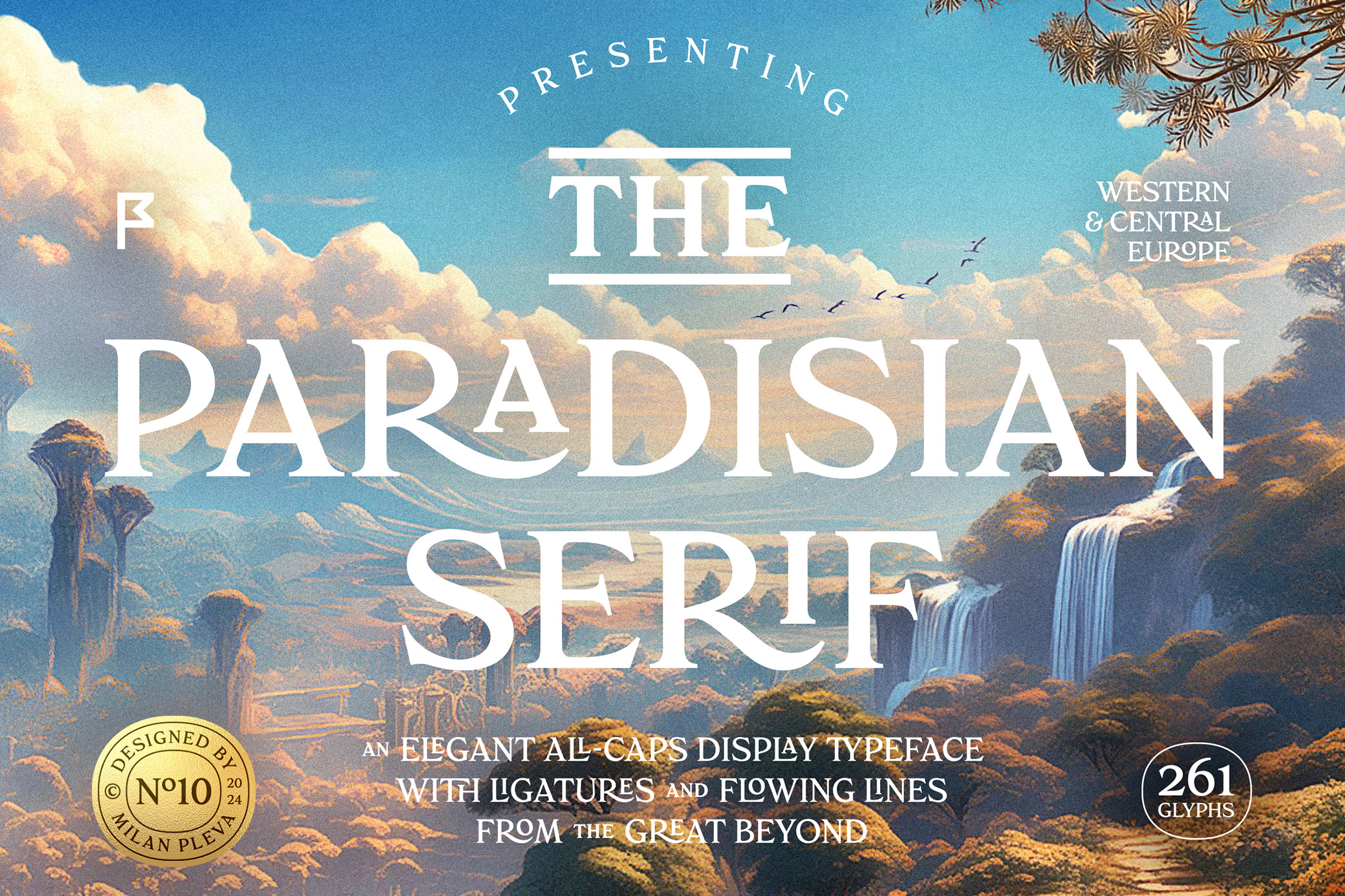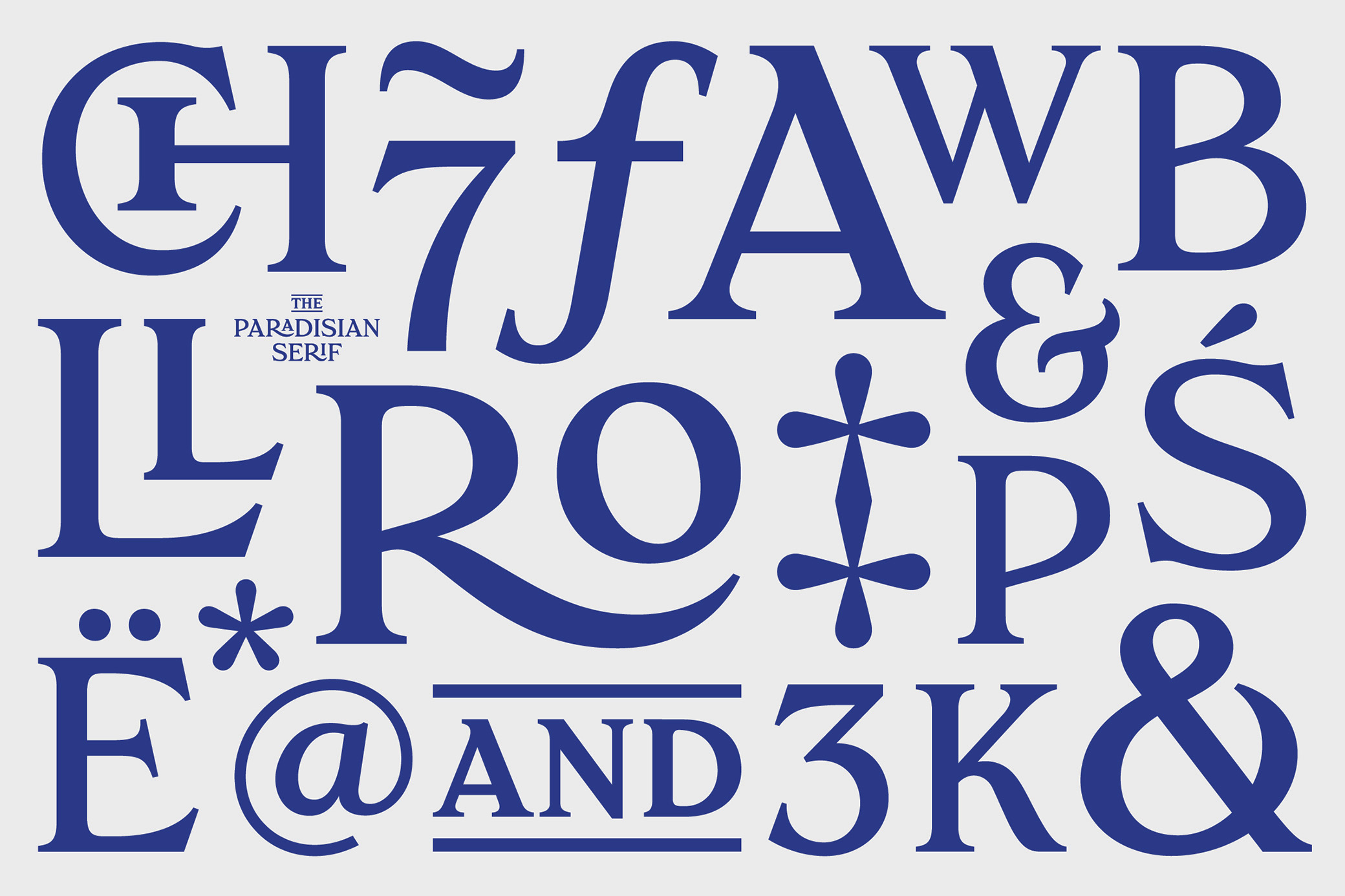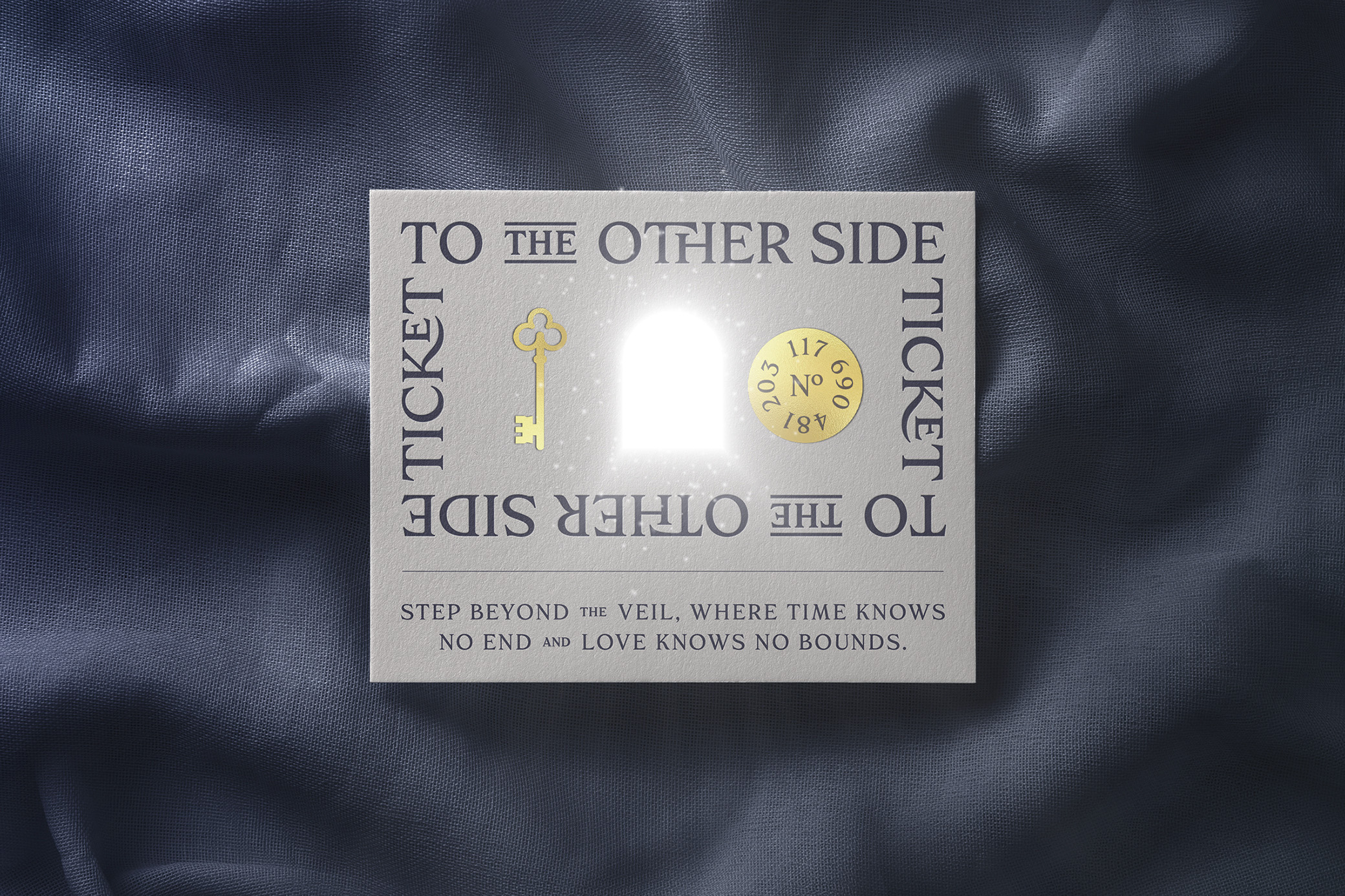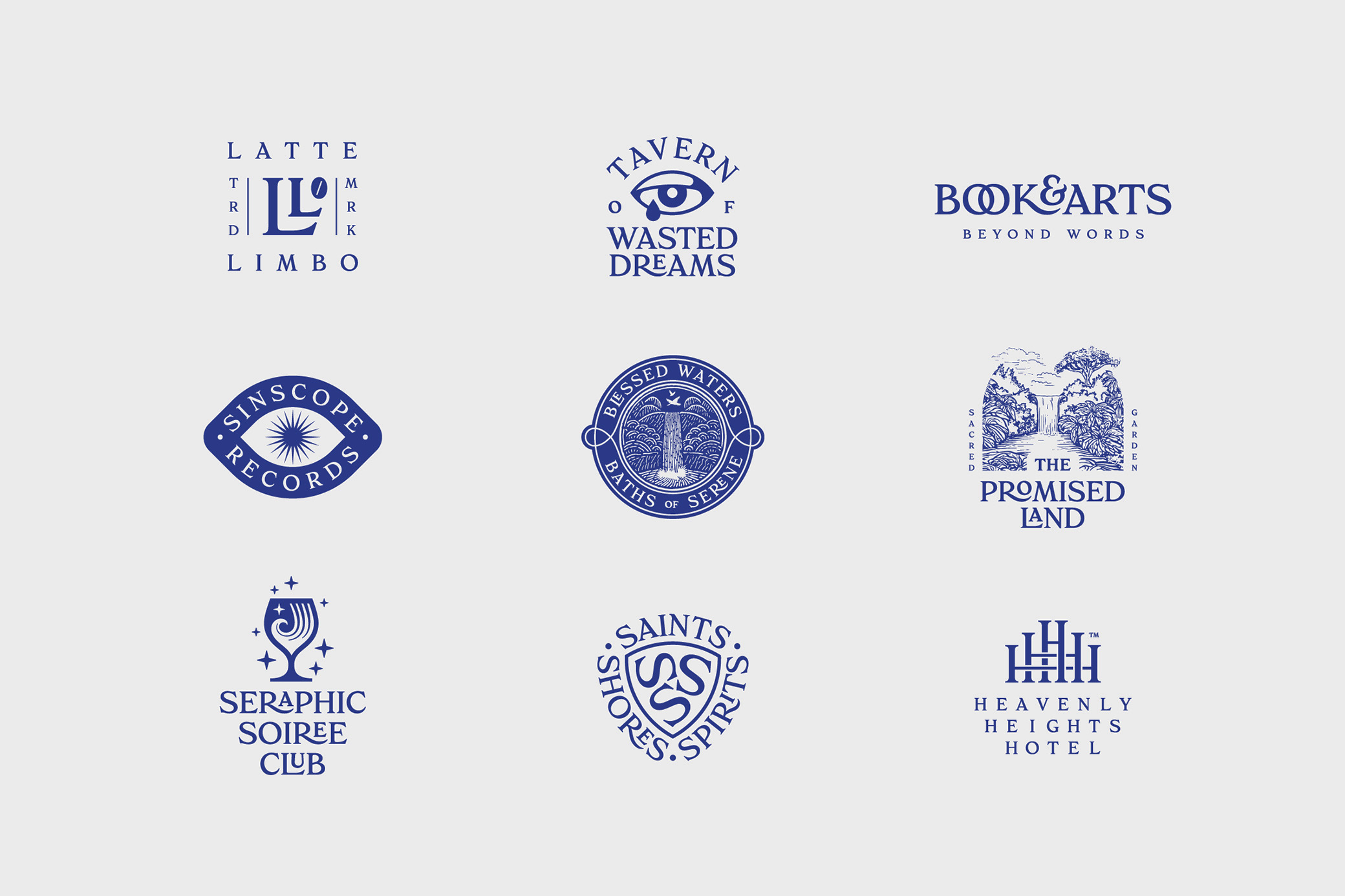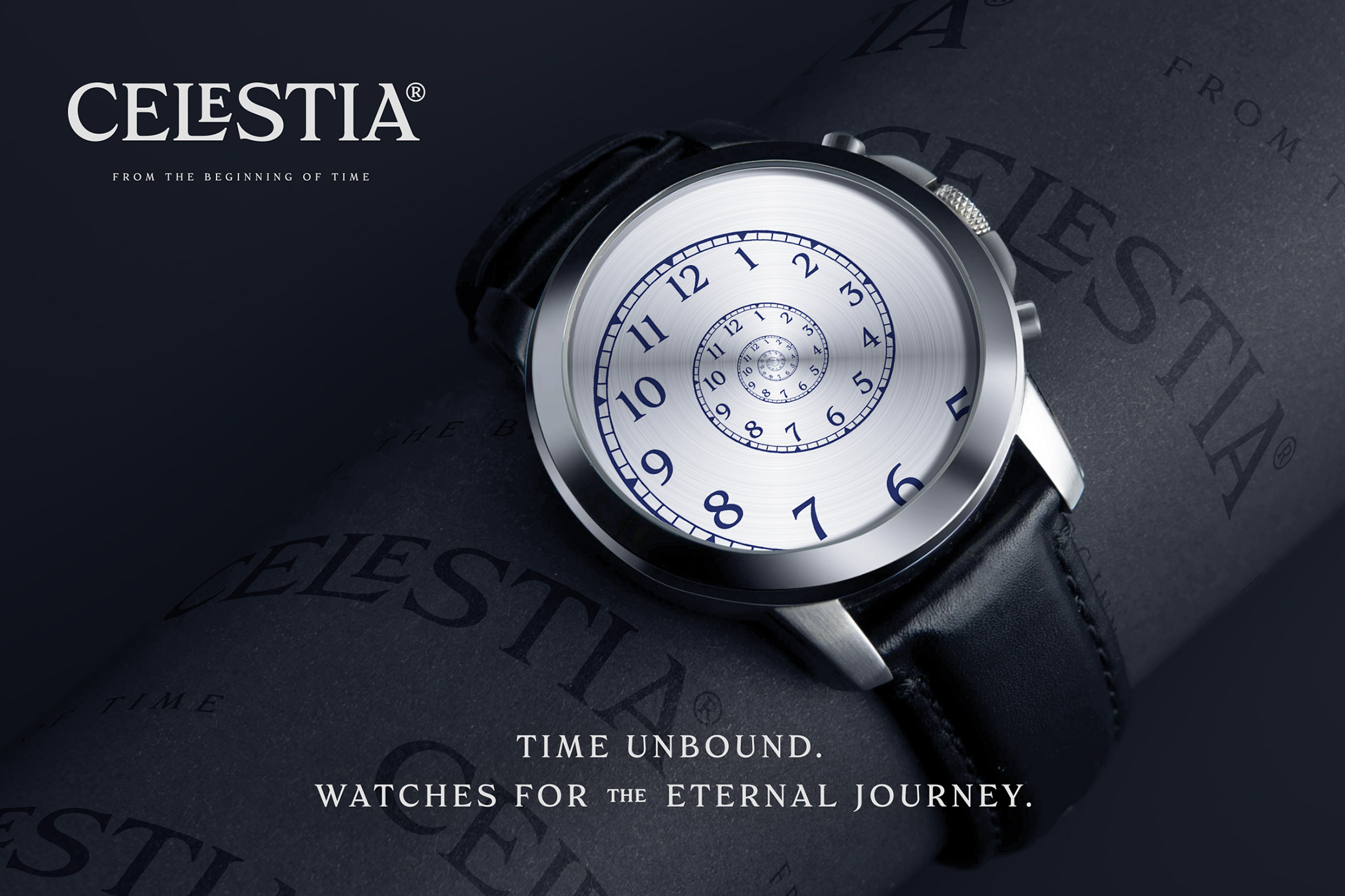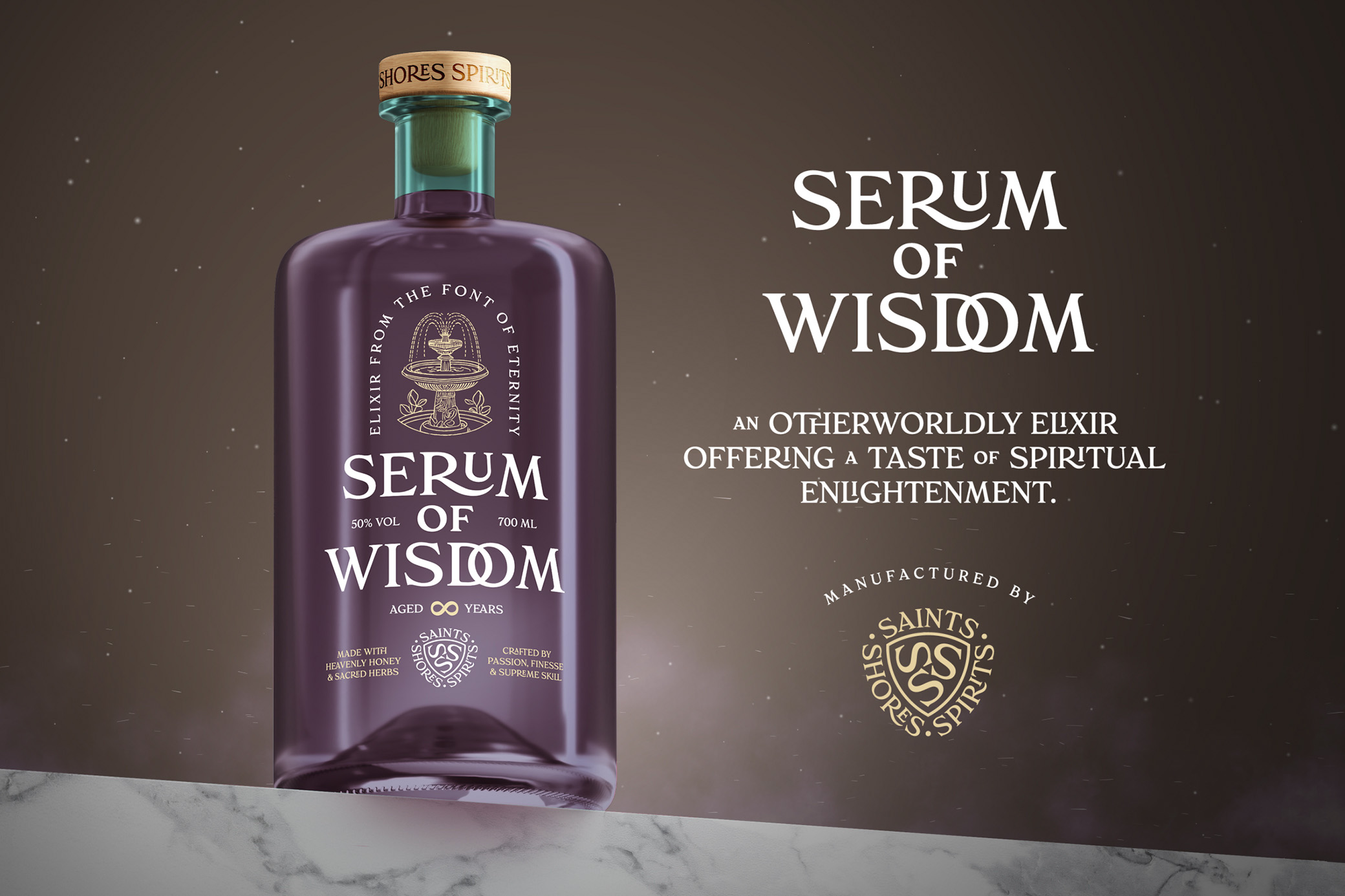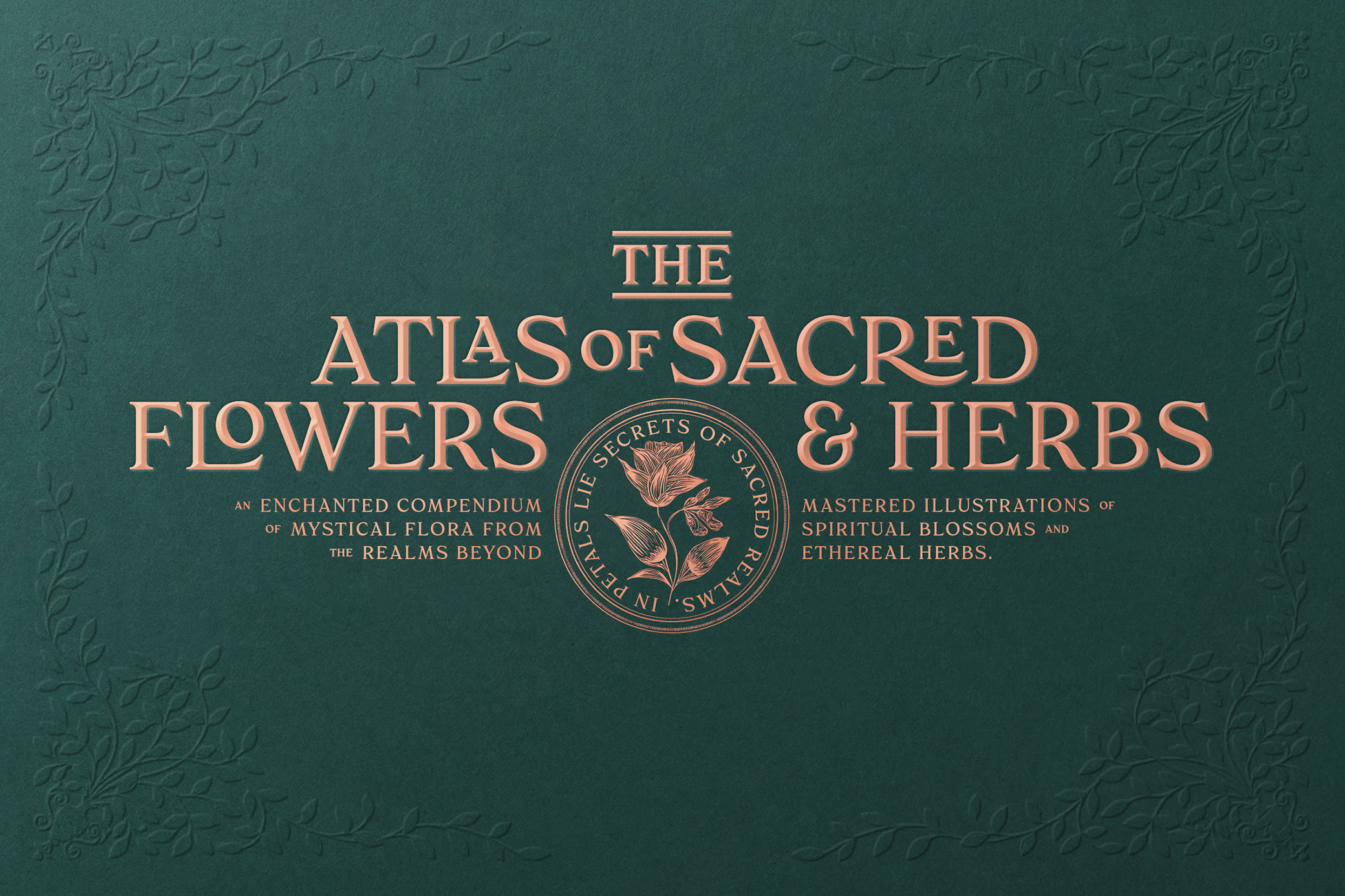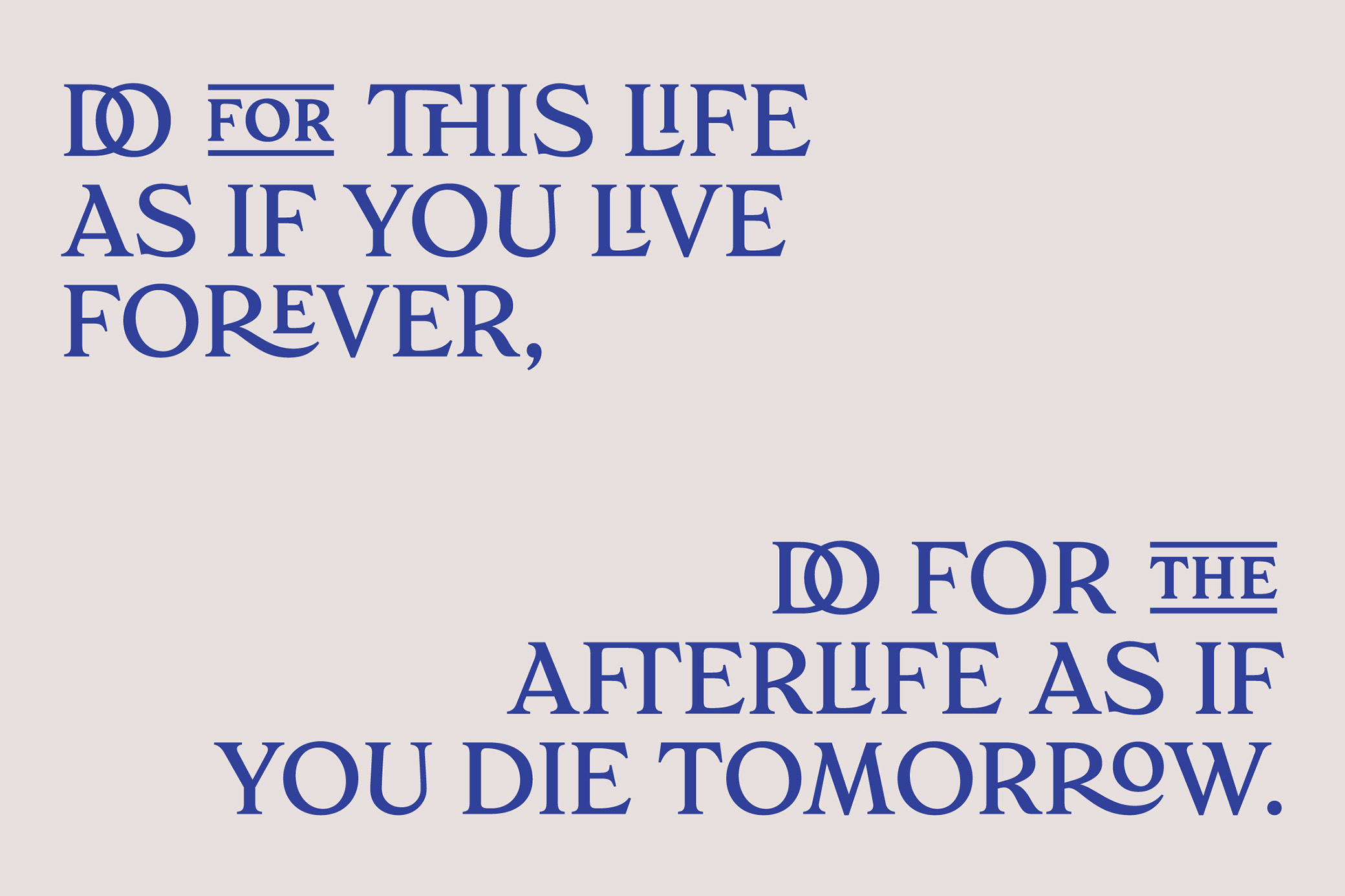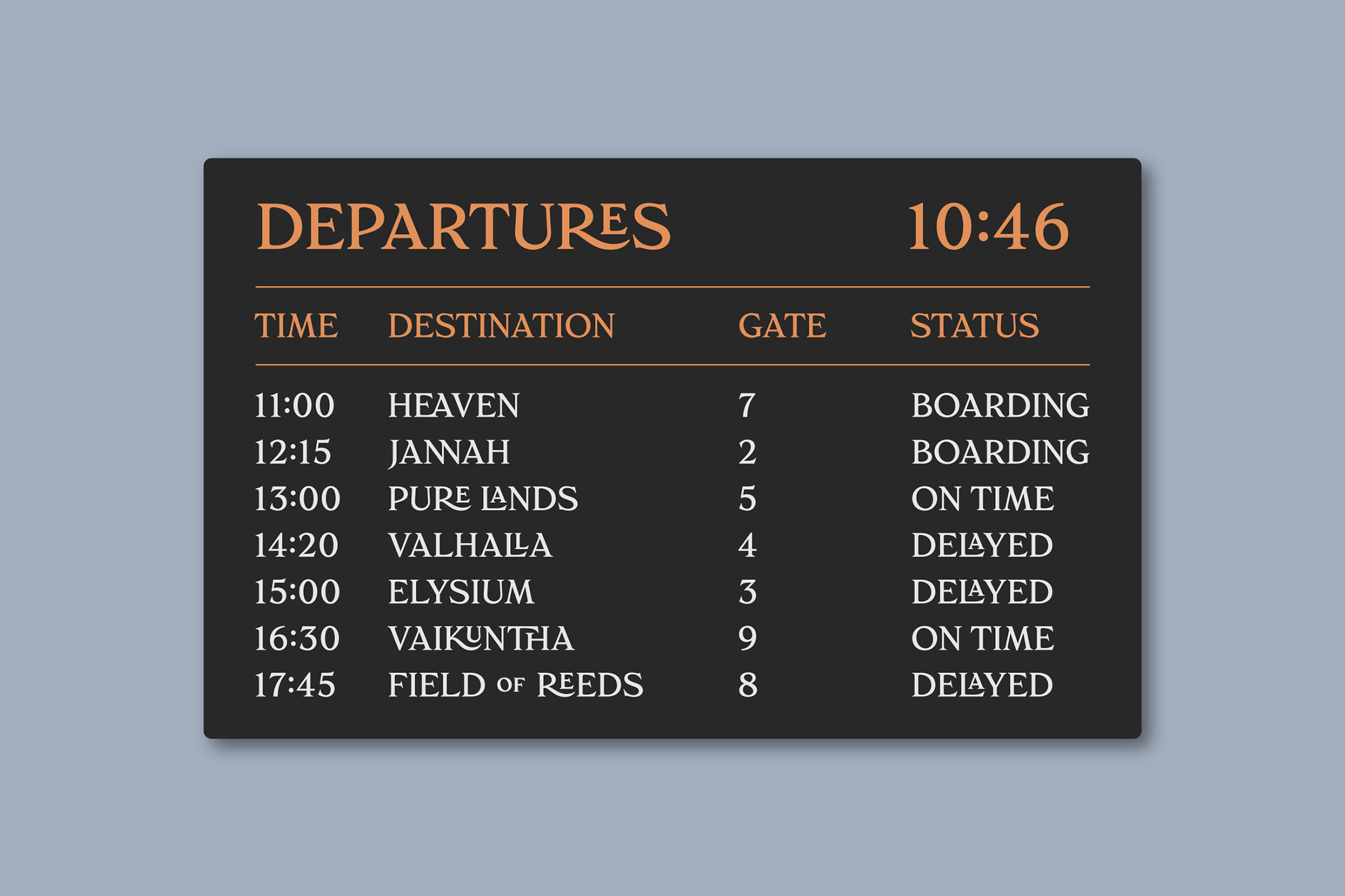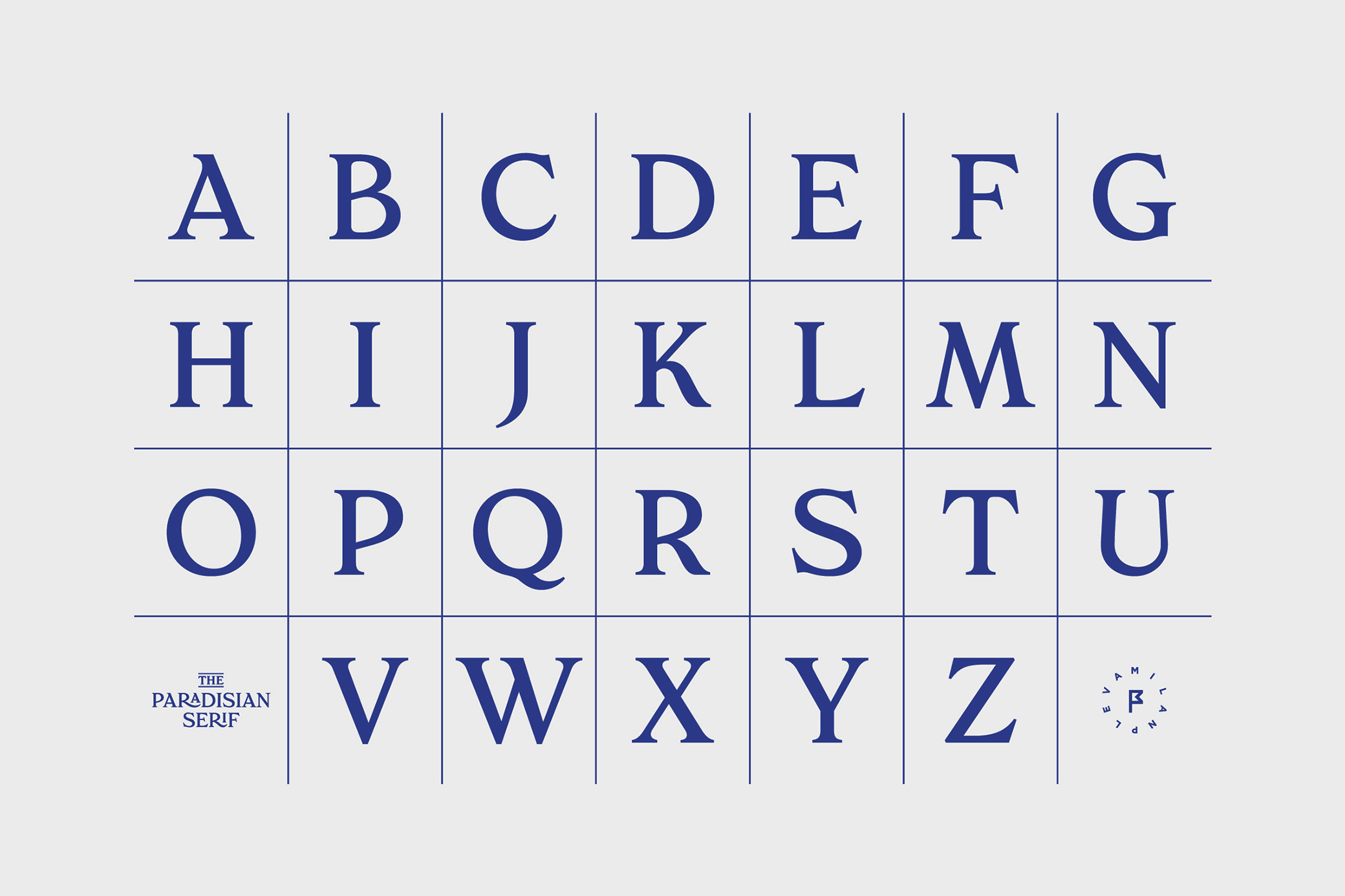
Paradisian Serif Font
In Paradisian, the romantic flair meets the vintage book cover typography. If it does not sound excessive or extreme, imagine Jules Verne writing love novels instead of Twenty Thousand Leagues Under the Sea. Now you know this font's vibe.
The Paradisian Serif is an all-caps display font with elegant and well-balanced curves, perfect for logos, headlines, magazines, or longer texts. Every letter carries the essence of a classic love story sprinkled with adventure spirit, so the variety of designs you can feature it in is indeed mesmerizing. The font includes a complete character set, plus ligatures, alternates, currency, maths symbols, and diacritics.